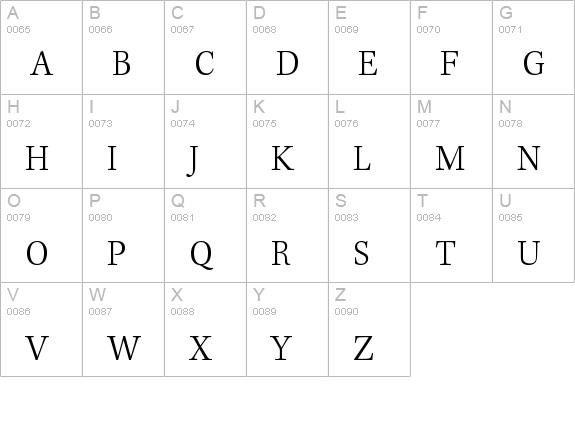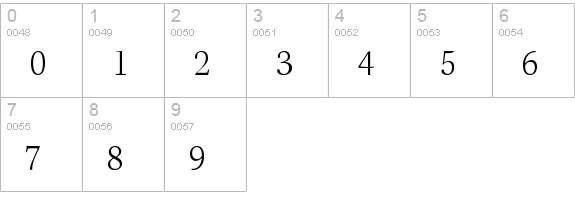
Kepler Std Light Semicondensed is a refined, elegant variant in the Kepler typeface family \xE2\x80\x94 well suited to elegant body text, refined sub-headings, and luxury branding.
Kepler Std Light Semicondensed font is a beautiful and elegant typeface that exudes sophistication and modernity. Its clean and crisp lines make it versatile and suitable for a wide range of design projects. The light weight of this font adds a subtle touch of delicacy and refinement, perfect for conveying a sense of elegance and professionalism. Whether used for print materials, websites, logos, or any other design application, Kepler Std Light Semicondensed font is sure to make a lasting impression. One of the best things about this font is that it is free to download. Yes, you read that right! Kepler Std Light Semicondensed font is freely available to download at FontsMarket.com. This means that you can access and use this stunning typeface without any cost or restrictions. FontsMarket.com is a trusted source for high-quality fonts, and they offer a wide selection of fonts for all your design needs. With just a few clicks, you can download Kepler Std Light Semicondensed font and start incorporating its beauty and elegance into your projects. So why wait? Take advantage of this amazing opportunity to enhance your designs with Kepler Std Light Semicondensed font. Download it for free at FontsMarket.com and elevate your designs to a whole new level of sophistication and style.